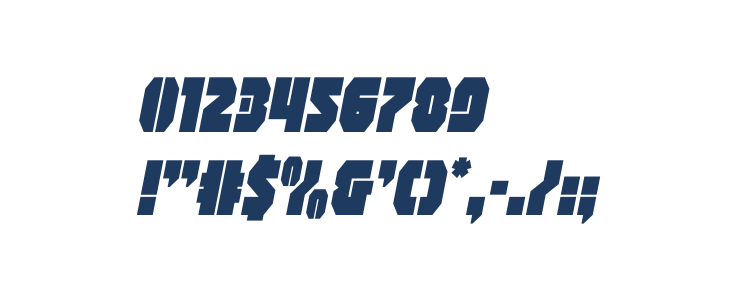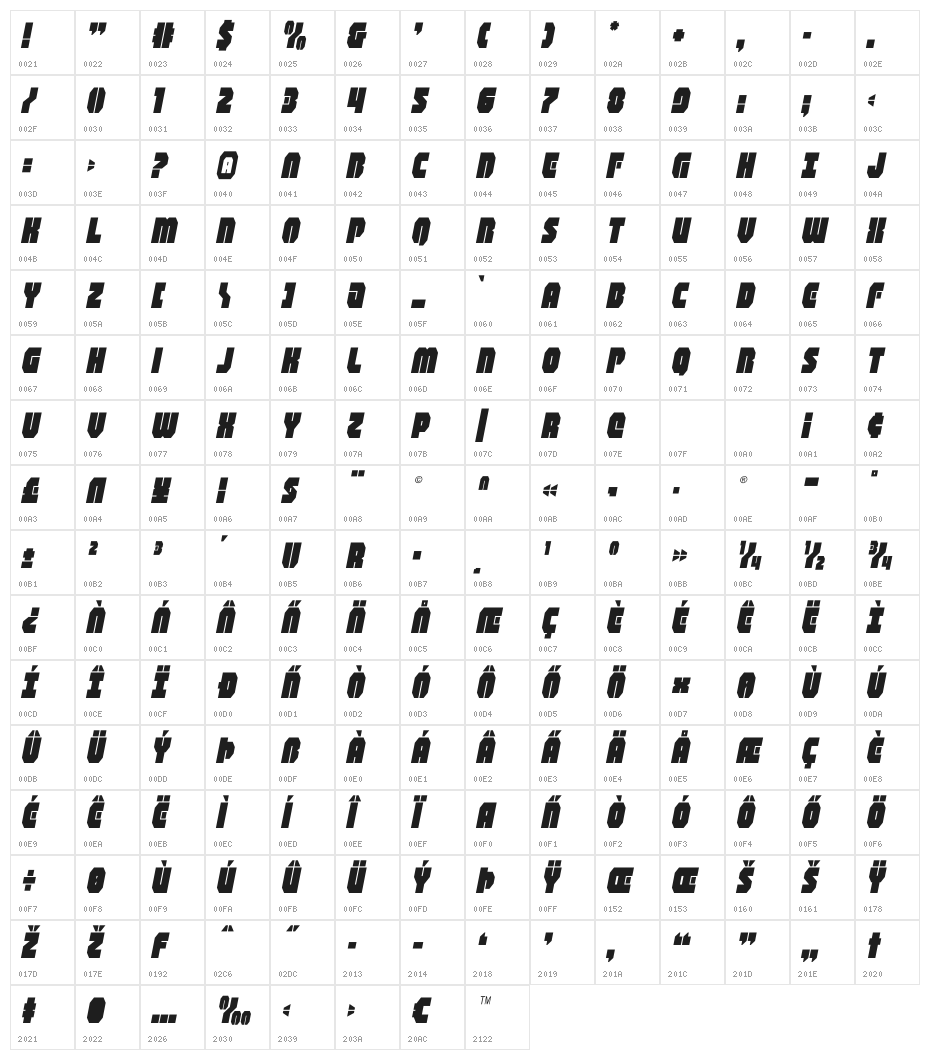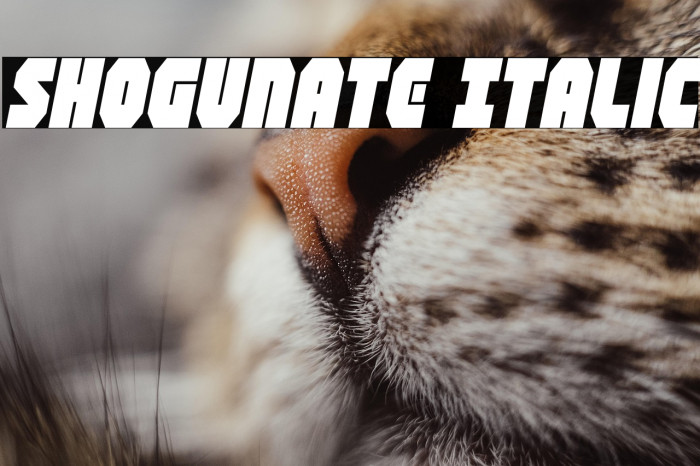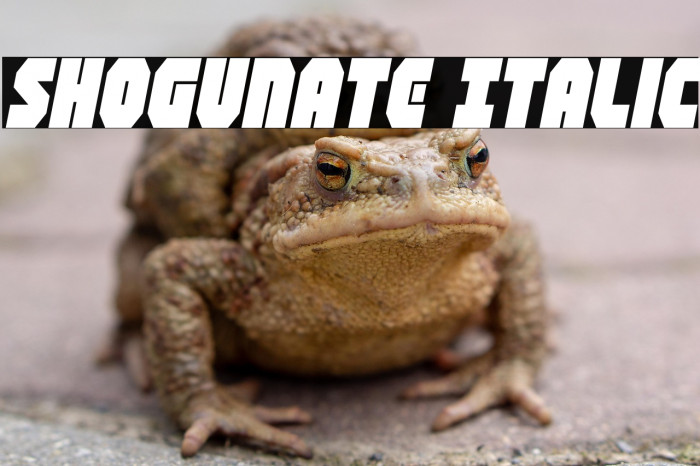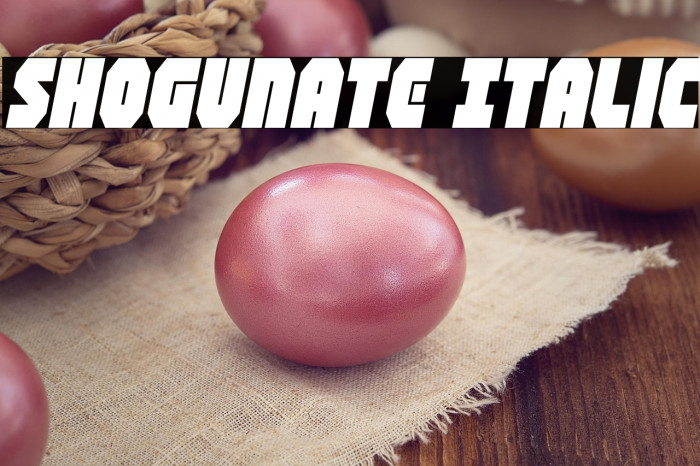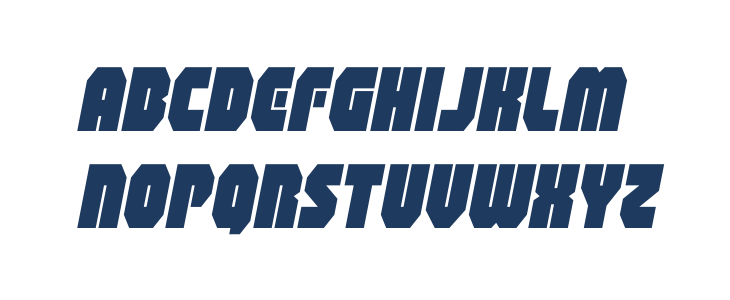
Shogunate Italic Font
Shogunate Italic Description
This font features a bold and dynamic style with a strong geometric influence. The characters are sharply angled, creating a sense of movement and energy. The italic slant adds to its dynamic appearance, making it stand out in any design. The uppercase and lowercase letters maintain a consistent weight, contributing to a cohesive look. The numbers and special characters are designed with the same boldness, ensuring uniformity across all text elements. This font's unique style is ideal for projects that require a modern and edgy aesthetic.